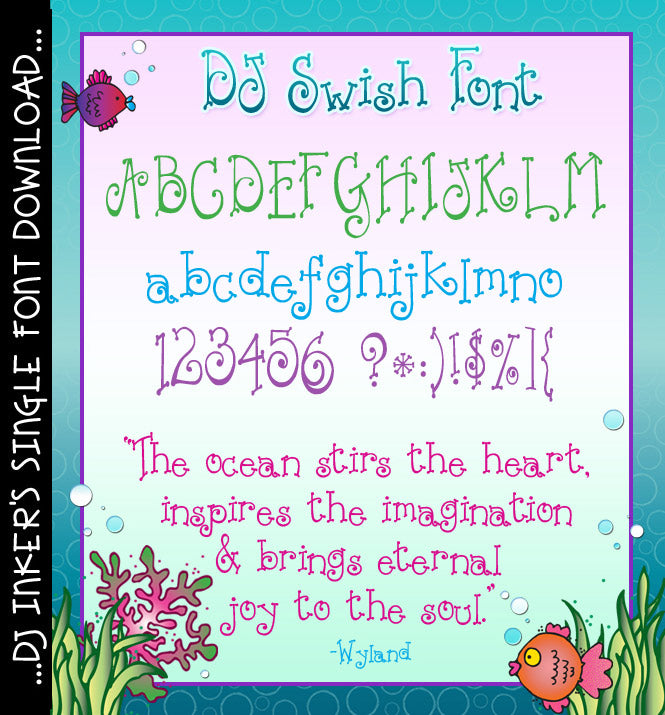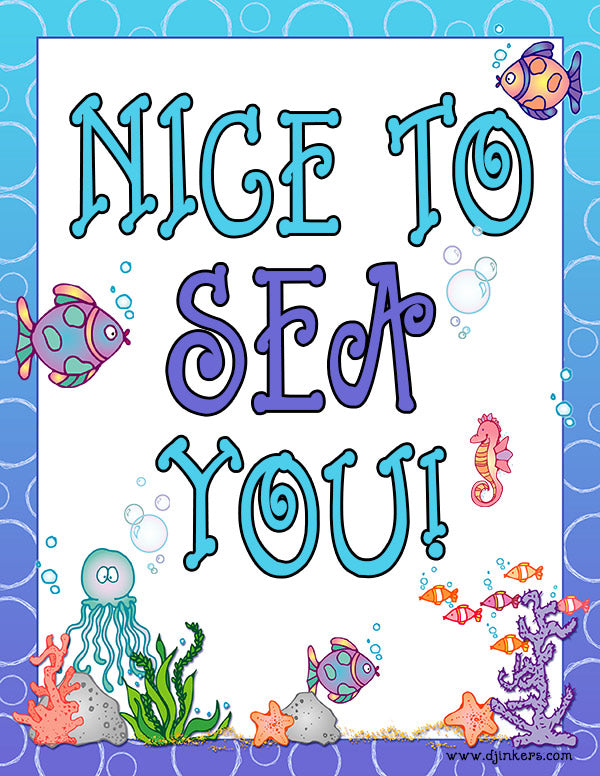
DJ Swish is a fun swirly font for computer crafting by DJ Inkers
You'll love this swirly, curly font from DJ Inkers! DJ Swish is great for customizing party invitations & decorations, girly fun, projects that splish or splash and adding bouncy personality to your text and headlines.